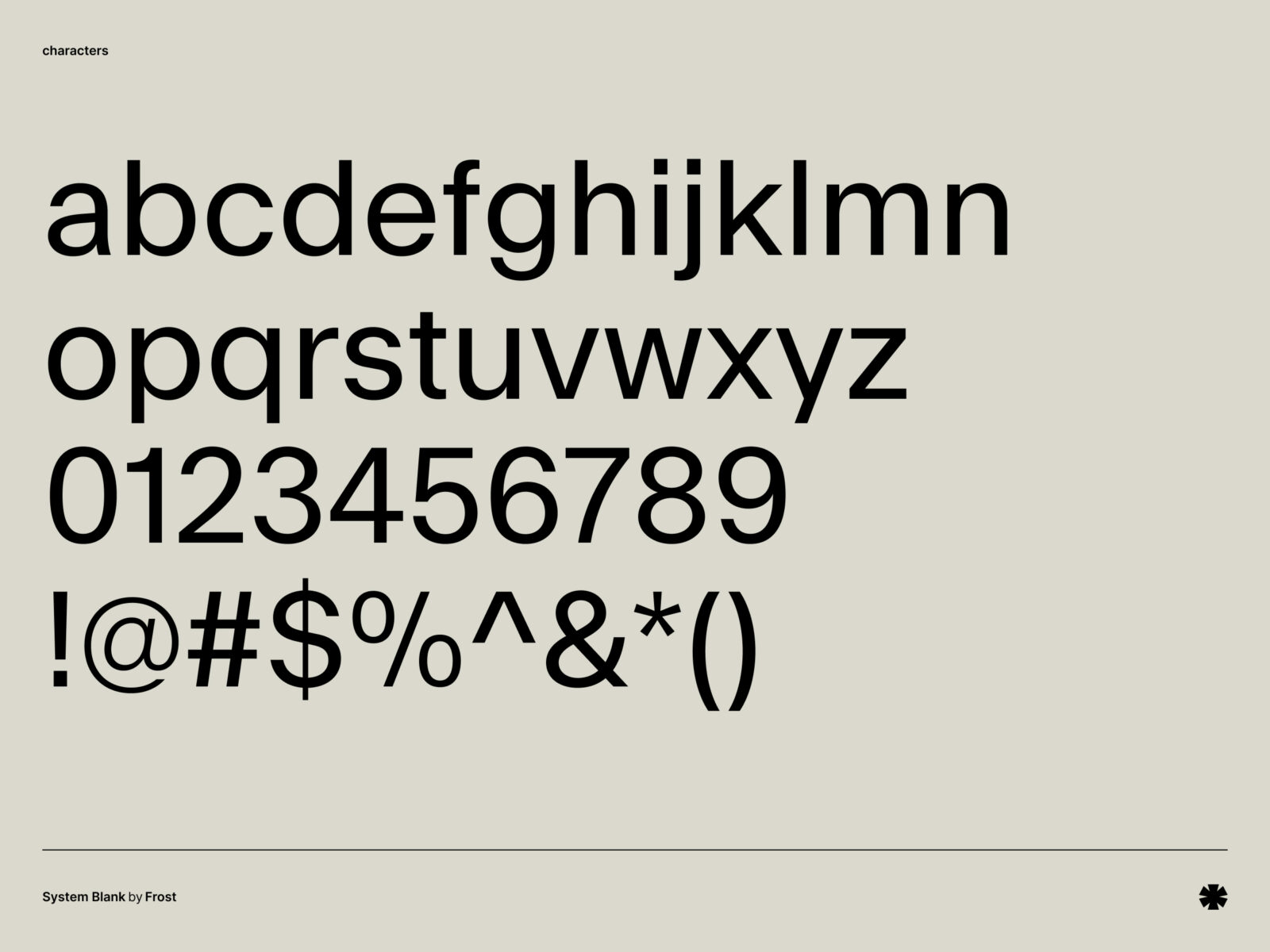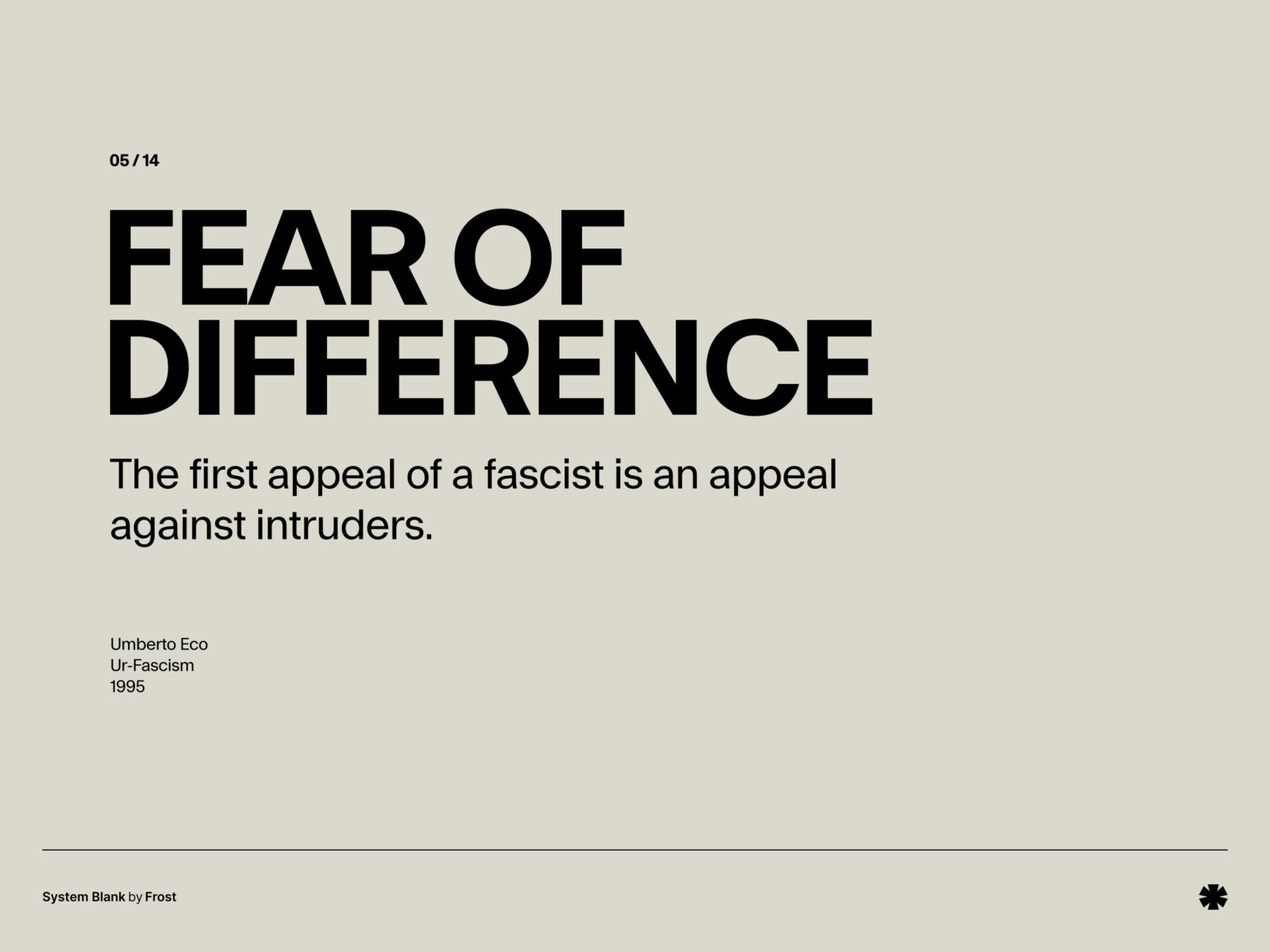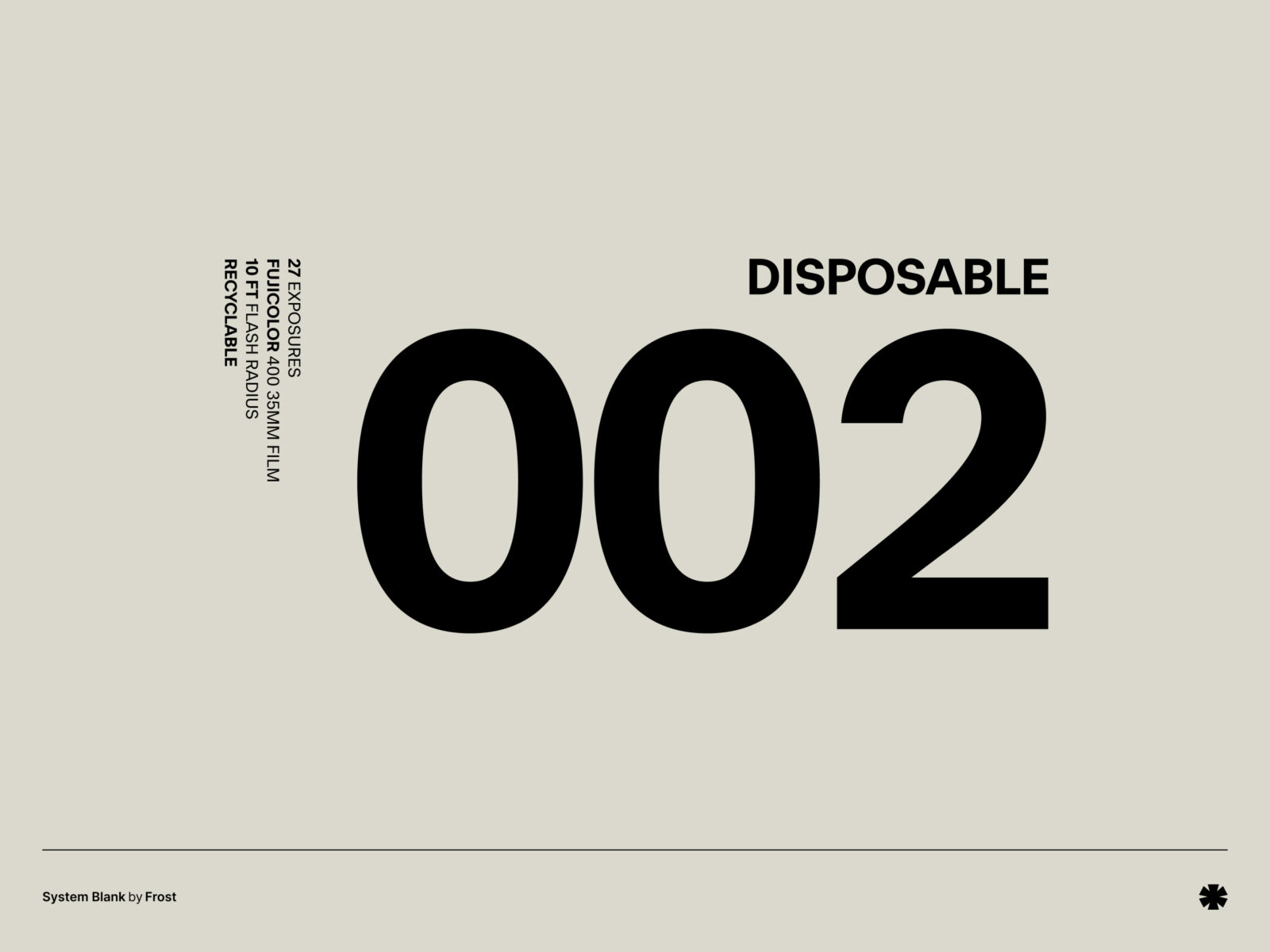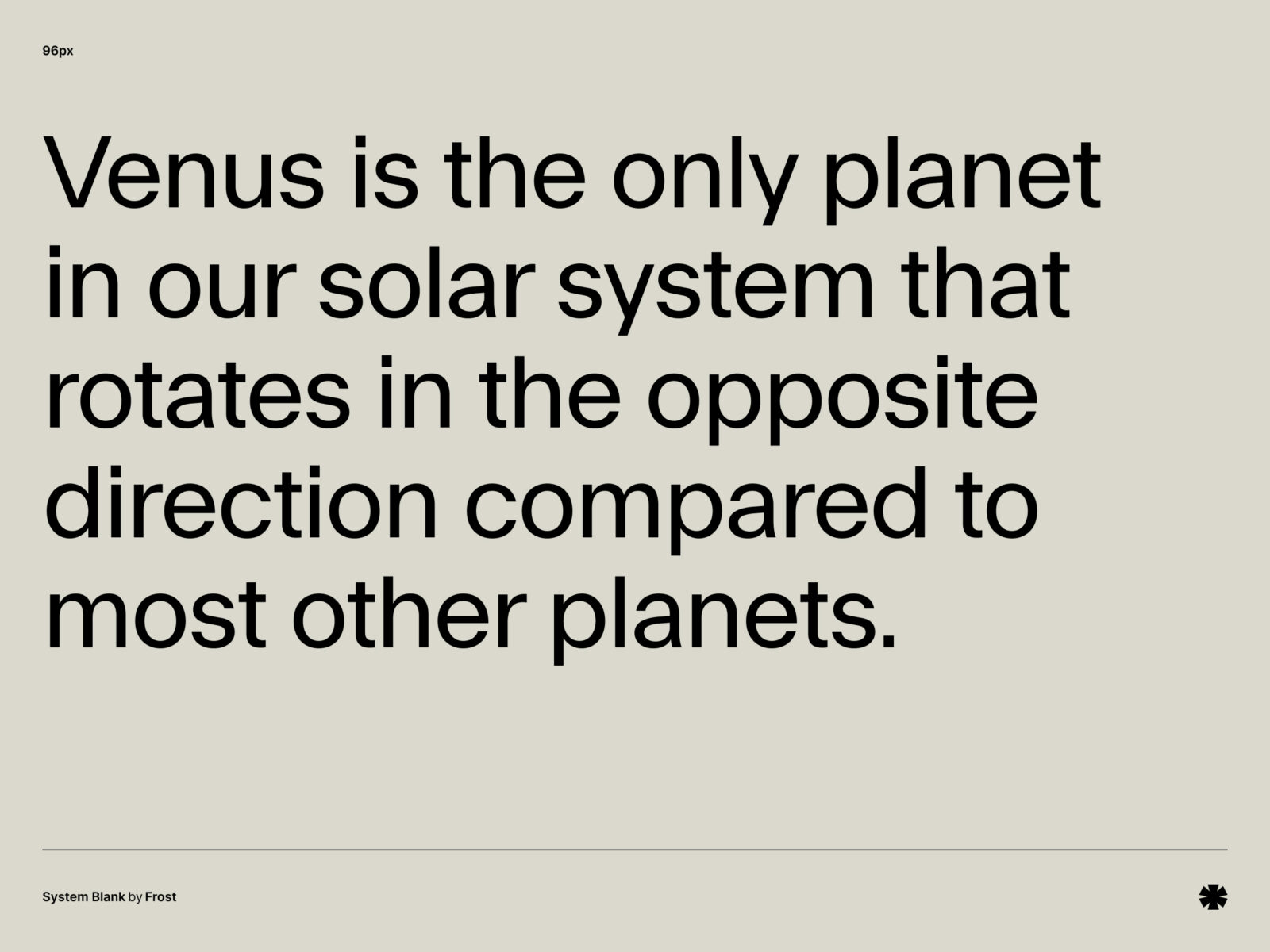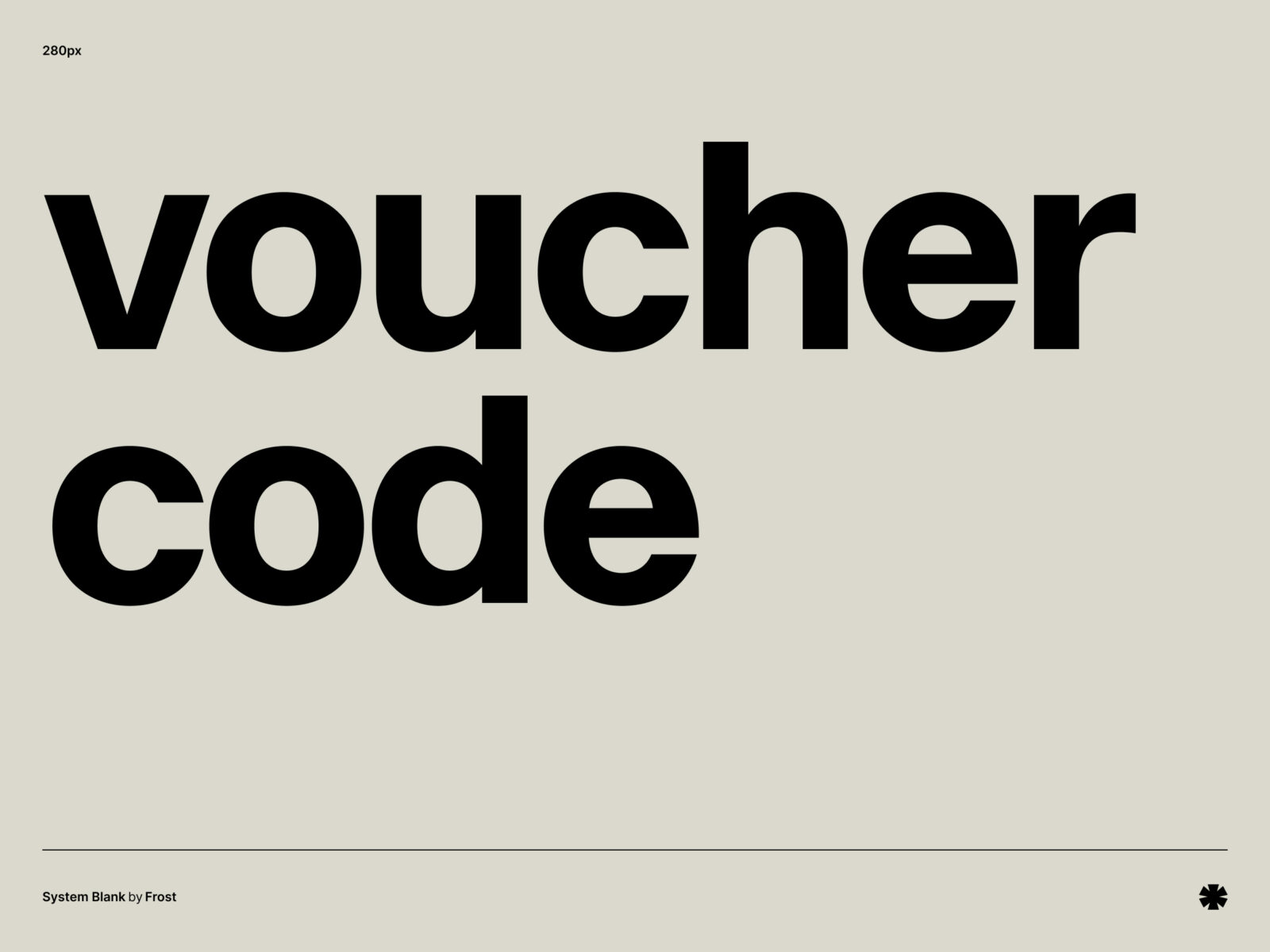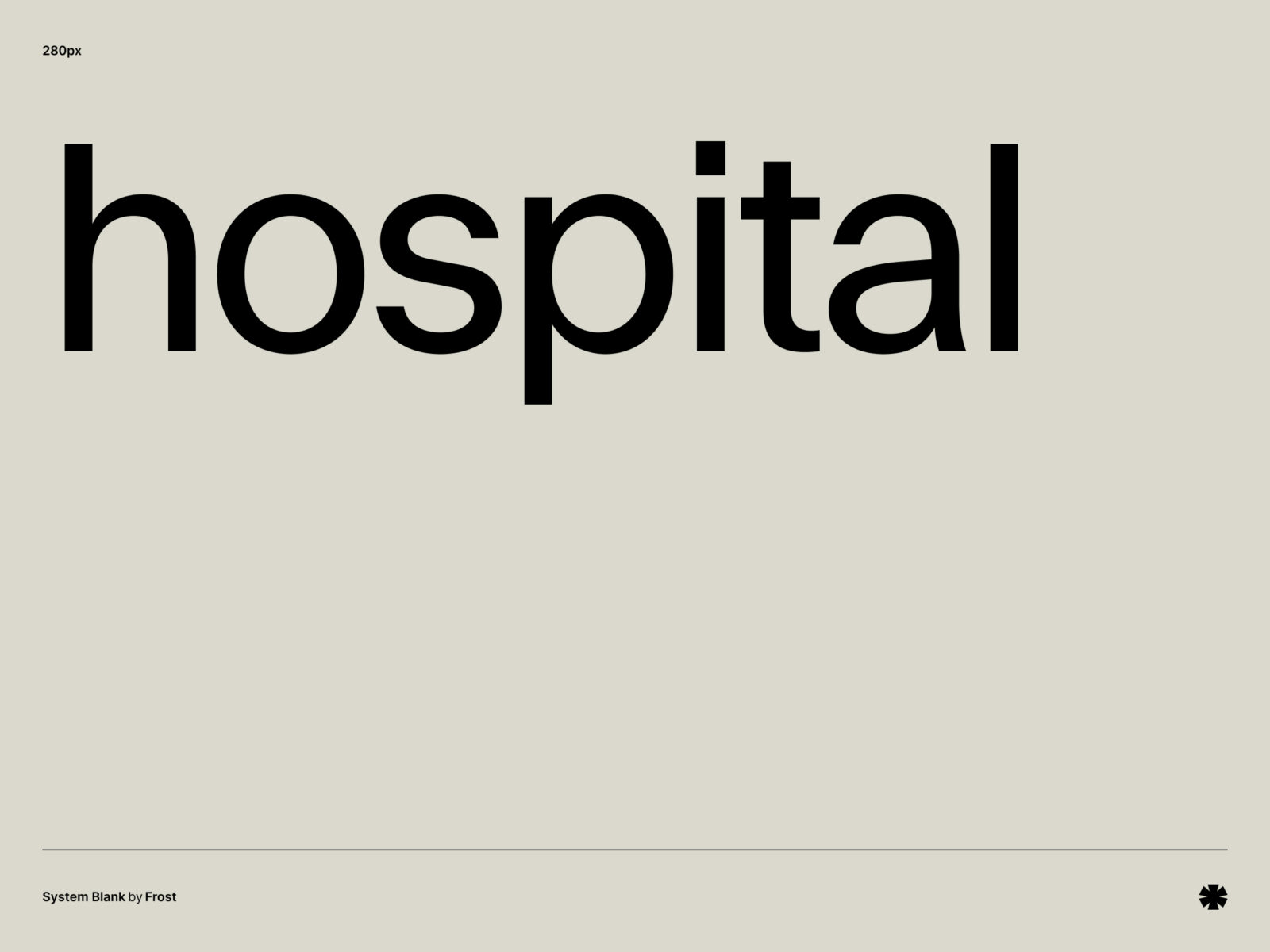
System Blank is a modernist neo-grotesk typeface. It draws its initial influence from wayfinding infographics found in art galleries across Europe and the US and also comes in Grotesk sub-family.
designer
Harrison Marshall